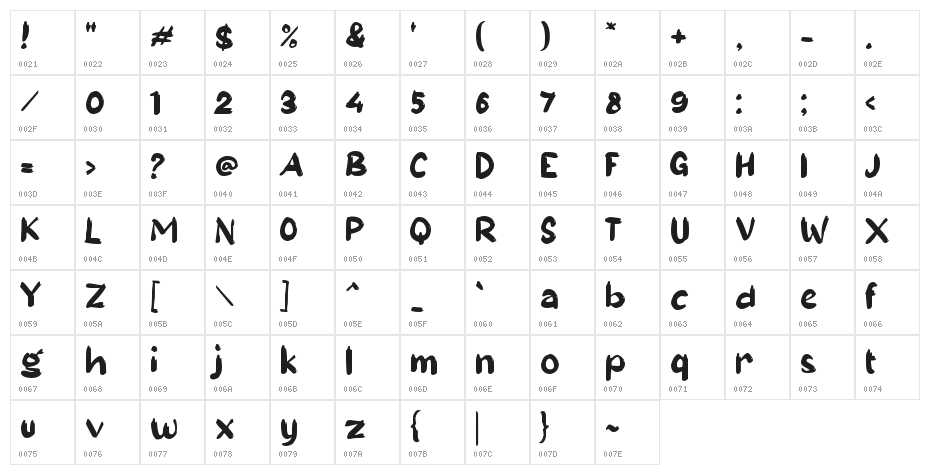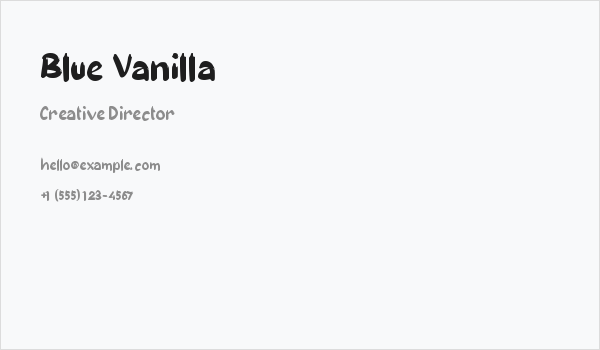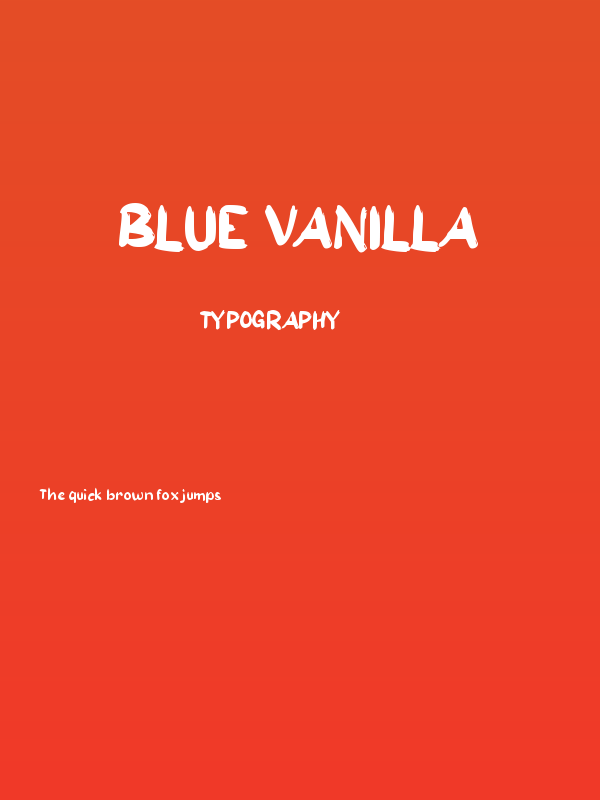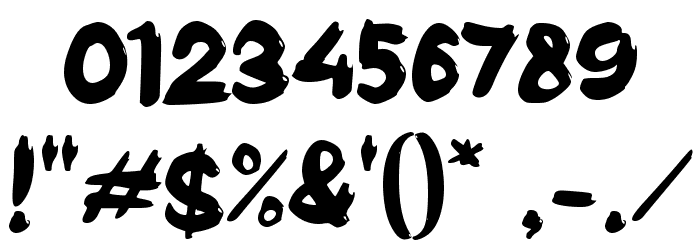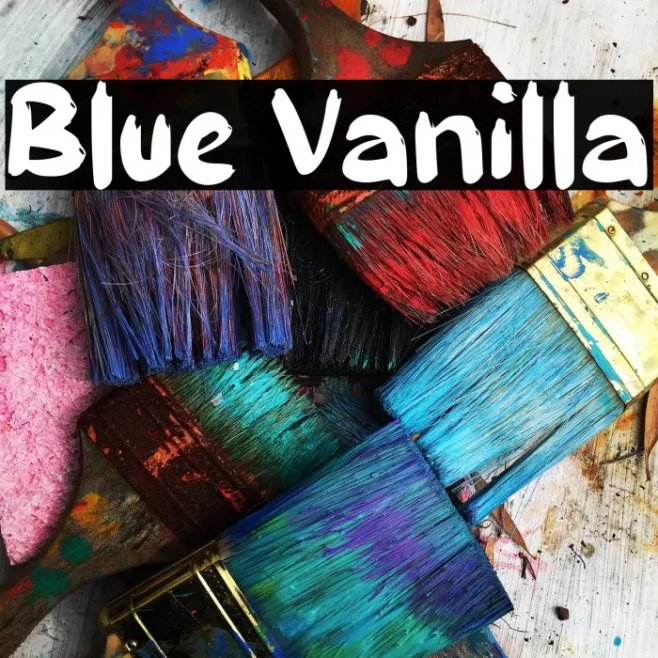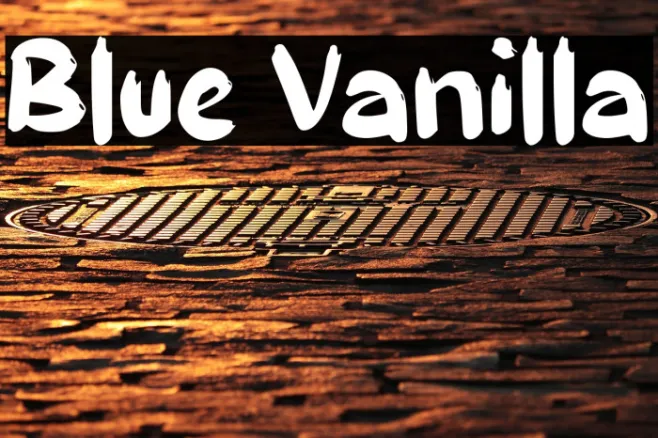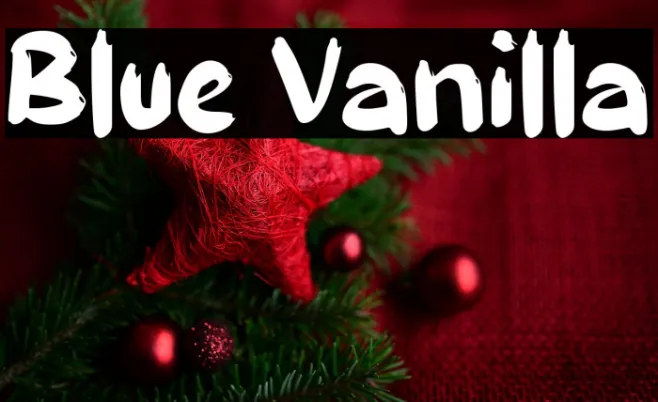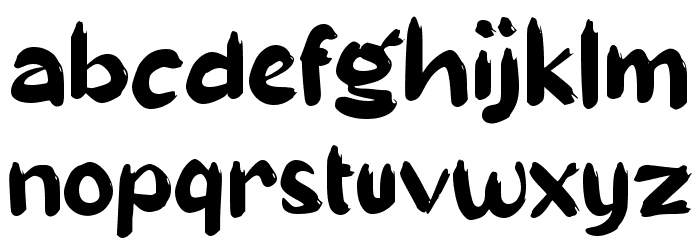
Blue Vanilla Font
Blue Vanilla Description
This font features a bold and expressive style with a hand-painted appearance. The strokes are thick and uneven, giving it a dynamic and energetic feel. The characters are slightly irregular, adding to its handmade charm. The uppercase and lowercase letters maintain a consistent style, with rounded edges and a playful touch. Numbers and special characters follow the same aesthetic, ensuring a cohesive look throughout. The font's boldness makes it stand out, making it ideal for attention-grabbing designs.
| Proposed Projects | Perfect for posters, branding, packaging, and any project needing a bold, artistic touch. |